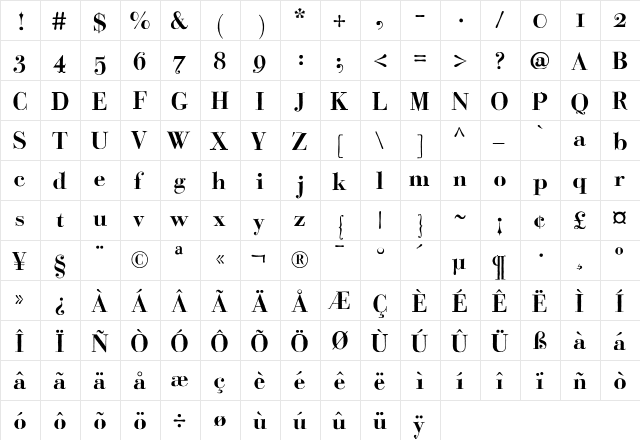
Bodoni Classic Handdrawn Bold
Design Context for Bodoni Classic Handdrawn Typeface
Bodoni Classic Handdrawn wears its vintage influences proudly, with letterforms that recall mid-century signage, classic packaging, and nostalgia-driven design. Its bold stroke weight gives it real presence on the page.
Perfect for vintage-inspired branding, retro packaging, nostalgia campaigns, and period-accurate editorial design.
Font Pairing: Combine Bodoni Classic Handdrawn with a simple slab or neutral sans — period-accurate companions reinforce the vintage feel without competing for attention.
Pro Tip: Use Bodoni Classic Handdrawn for headlines and pull quotes rather than body copy — its personality is best appreciated in short, focused bursts.